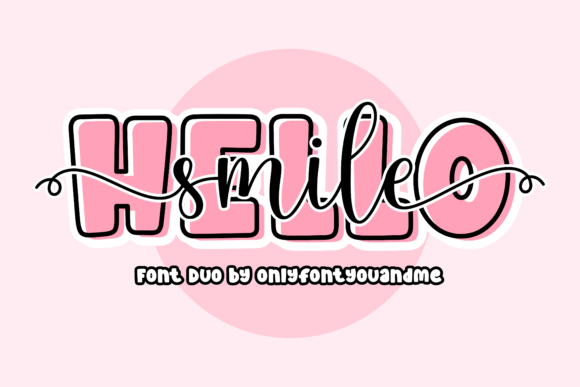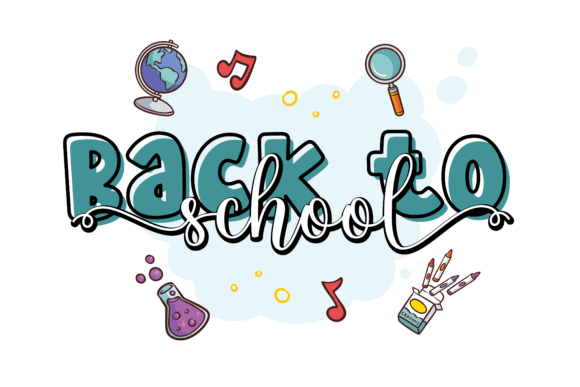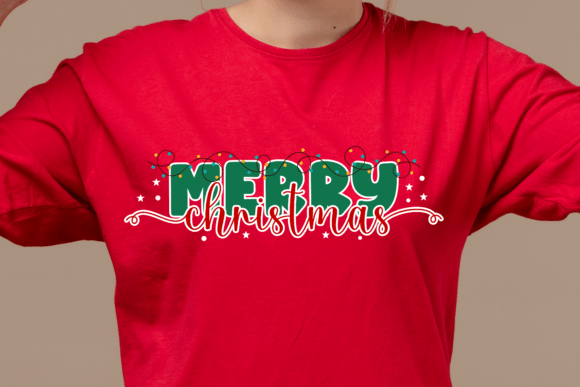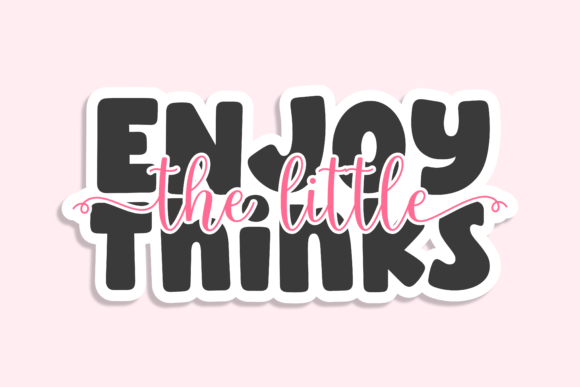
Hello Smile Font
About the Hello Smile Font
From logos to headlines, the Hello Smile Font is the perfect choice for making a lasting impression. Hello Smile is a unique font design that creatively blends two distinct styles: bold, blocky, and rounded elements with elegant, flowing lines. This combination results in a playful and friendly vibe, making it perfect for casual and fun designs. The dynamic and eye-catching effect of this “font duo” style is ideal for conveying warmth, friendliness, and creativity. It’s especially popular in T Shirt, social media graphics, and other playful typography-based designs.
Hello Smile Font excels in headlines, short slogans, and logos where its playful energy shines. It’s also a strong choice for packaging design, particularly for products targeting a younger demographic or those emphasizing fun and approachability. However, its bold forms and varied stroke weights make it less suitable for body text or lengthy paragraphs; readability suffers at smaller sizes. Avoid using it in user interfaces where clarity and legibility are paramount.
The font’s friendly, slightly quirky personality pairs well with clean sans-serif fonts like Open Sans for a balanced contrast, or with a more geometric sans-serif such as Futura for a modern feel. For a touch of sophistication, consider pairing it with a delicate script font, but use it sparingly as a secondary element to avoid overwhelming Hello Smile’s unique character.
Overall, Hello Smile projects a youthful and approachable aesthetic. Brands focused on creativity, playfulness, or child-friendly products would find this font particularly effective.
Hello Smile Font Usage Examples
Hello Smile Font Example